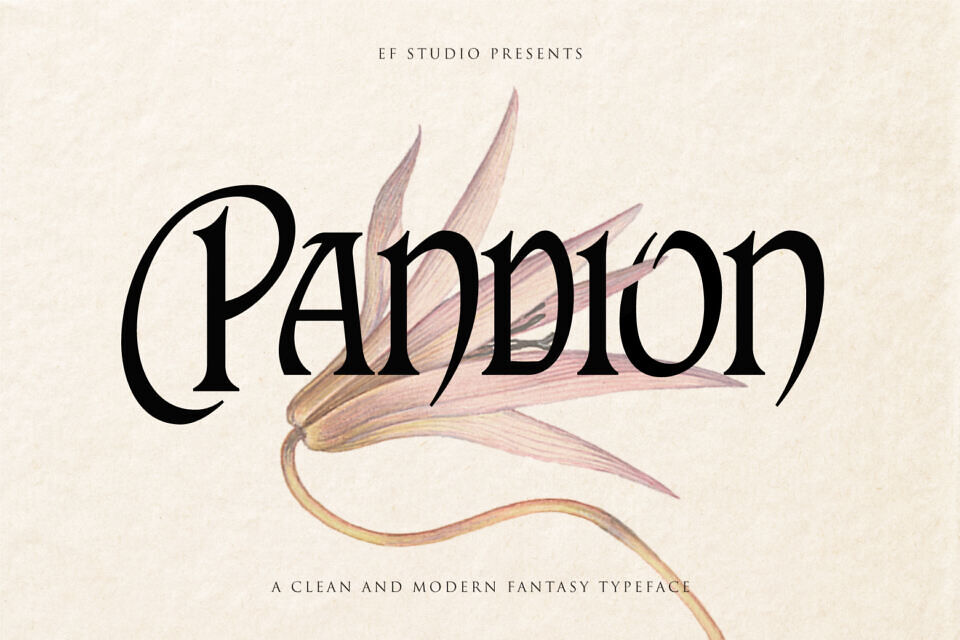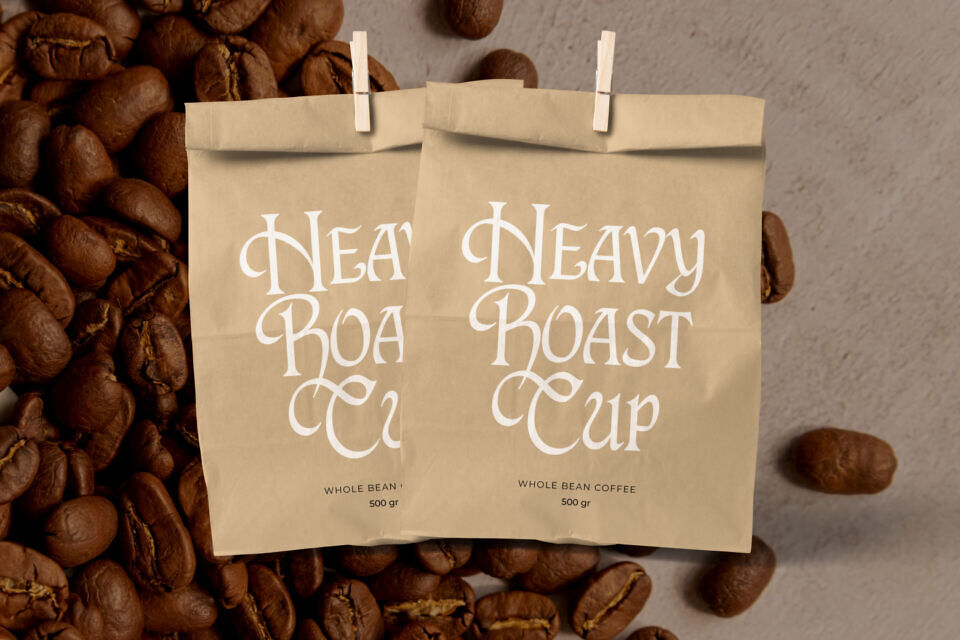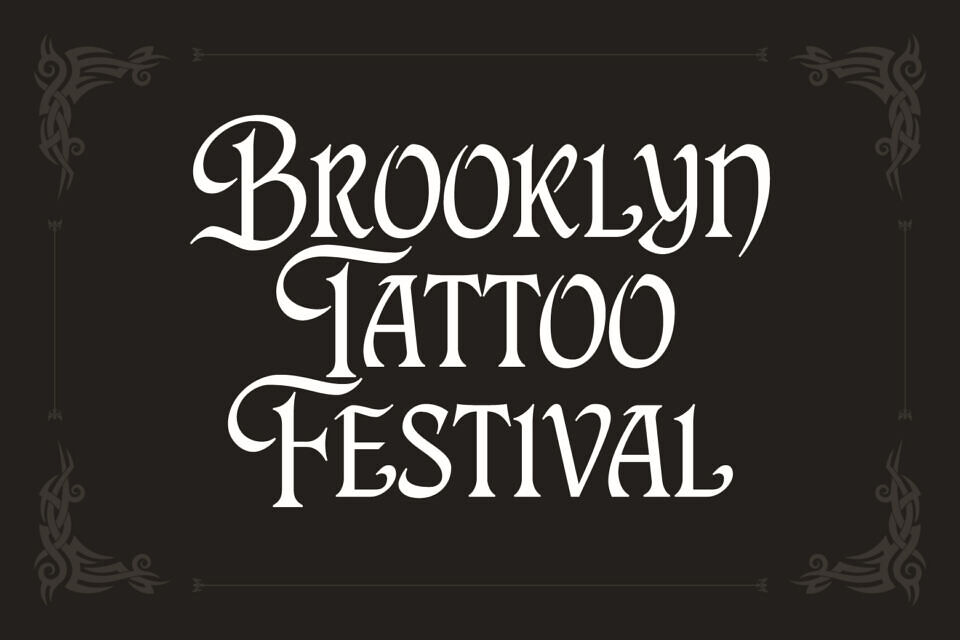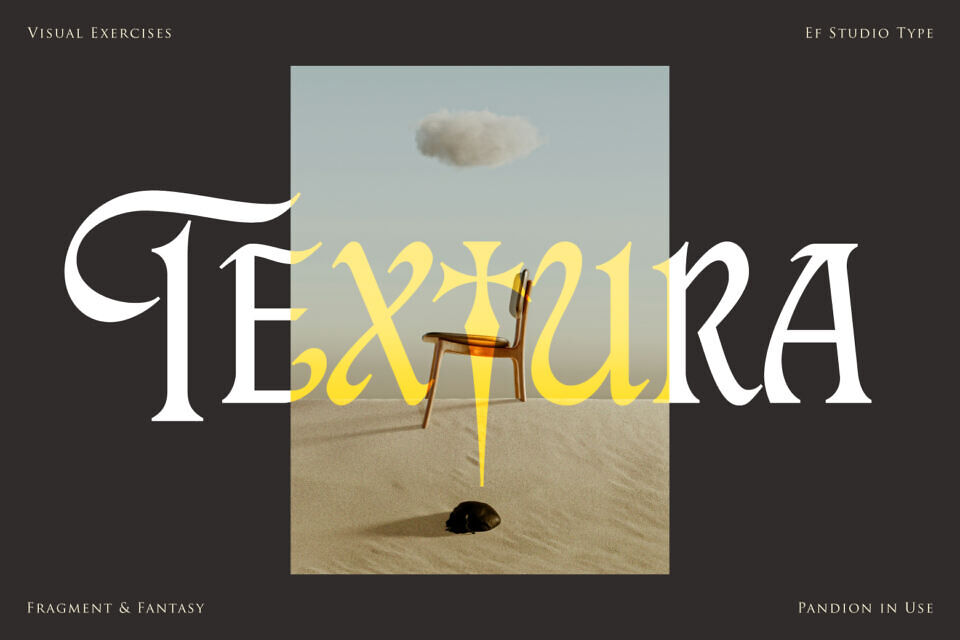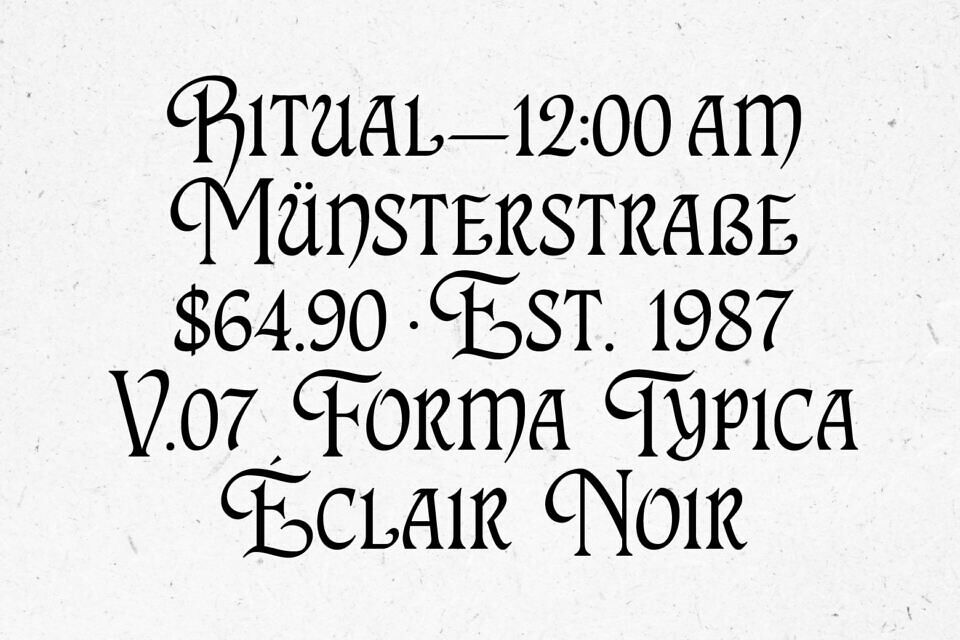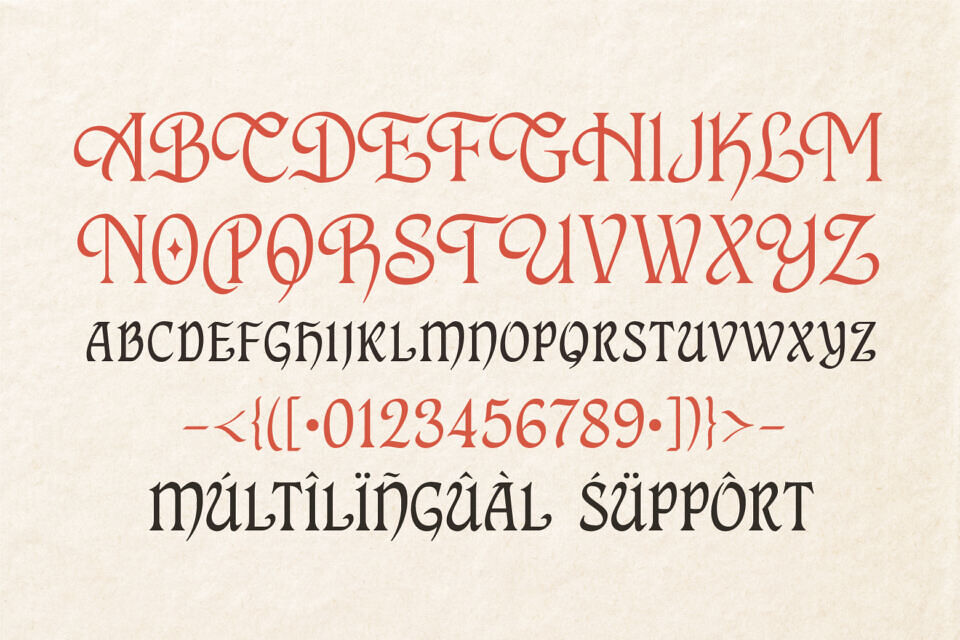
Pandion Font
Pandion is a clean and modern fantasy typeface that blends elegance with a touch of mysticism. Its sharp serifs and dramatic curves evoke the spirit of medieval calligraphy while maintaining a refined, contemporary edge.
With high contrast strokes and unique letterforms, Pandion is ideal for fantasy titles, book covers, game logos, and any project that calls for a bold yet graceful typographic voice. Whether you’re designing for epic adventures or magical realms, Pandion brings a sense of grandeur and storytelling to your words.